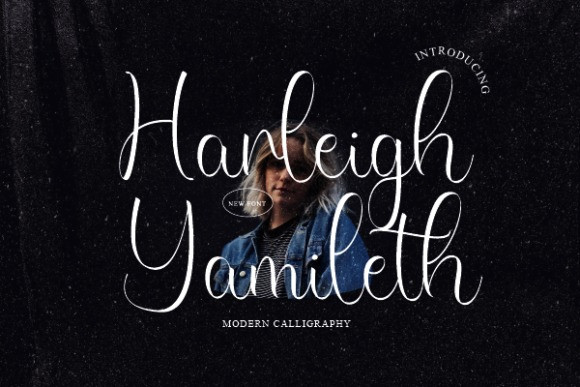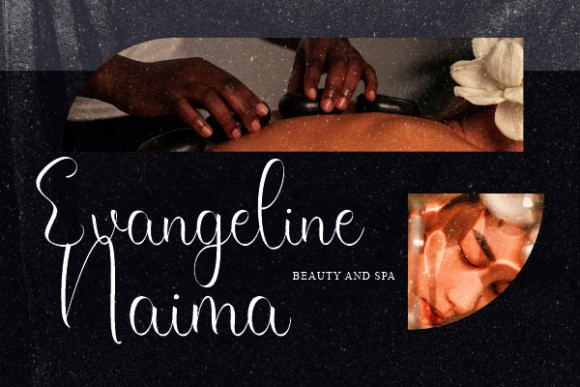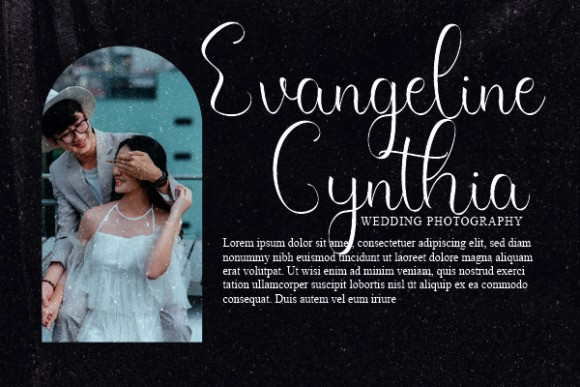
Harleigh Yamileth Font
Harleigh Yamileth is a well-balanced and cursive handwritten font. This gentle font will look gorgeous on a variety of design ideas. It will add a joyful and romantic touch to each of your projects!